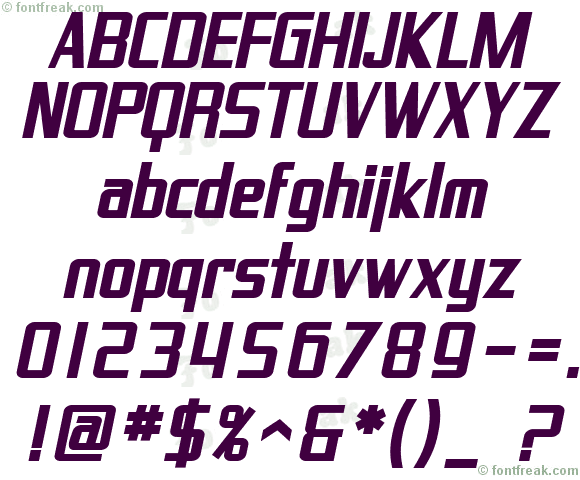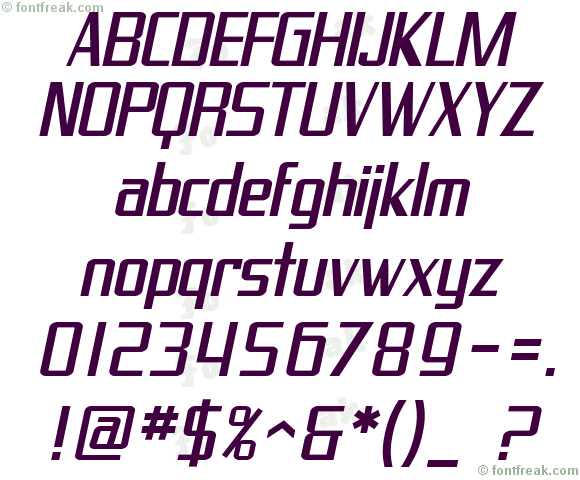
SF Proverbial Gothic Condensed
SF Proverbial Gothic Bold
SF Proverbial Gothic Bold Oblique
SF Proverbial Gothic Extended Oblique
SF Proverbial Gothic Condensed Oblique
SF Proverbial Gothic
SF Proverbial Gothic Extended
SF Proverbial Gothic Oblique
Proverbial Gothic, crafted by Shyfonts Type Foundry, is a striking display font that embodies a modern interpretation of gothic aesthetics. This freeware typeface showcases a condensed structure, making it an excellent choice for projects that require bold, eye-catching typography. The font features strong, geometric lines with a consistent stroke weight, creating a sense of stability and strength. Its oblique style adds a touch of dynamism, lending itself well to headlines and prominent text. The spacing is carefully considered, allowing for readability while maintaining the font's distinctive character.
This versatile typeface is particularly suited for a range of creative applications. It can elevate wedding invitations with its unique flair, drawing attention to important details while maintaining elegance. Movie posters benefit from the bold presence of Proverbial Gothic, effectively capturing the viewer's eye and conveying a sense of drama. For restaurant menus, this font can add a modern twist, making the menu items stand out with style. Additionally, it works well in branding materials for small businesses, helping to establish a memorable visual identity.
The target audience for Proverbial Gothic includes graphic designers, small business owners, and content creators who are seeking to enhance their projects with a distinctive typographic choice. Its unique blend of modernity and tradition appeals to those looking to make a statement without compromising on readability.
What sets Proverbial Gothic apart is its ability to bridge the gap between classic gothic influences and contemporary design trends. Its boldness and unique characteristics make it a compelling choice for anyone looking to create impactful visual statements. For those intrigued by this exceptional typeface, the Proverbial Gothic font free download is an opportunity to incorporate a sophisticated design element into their work.